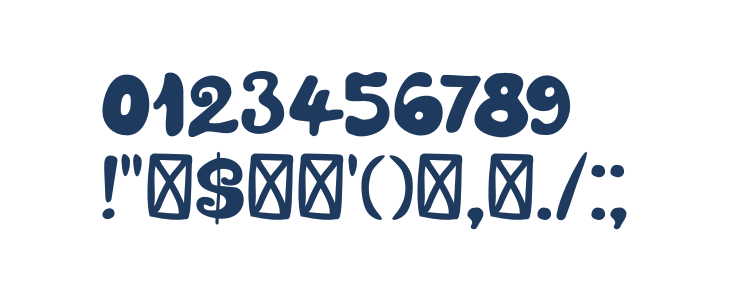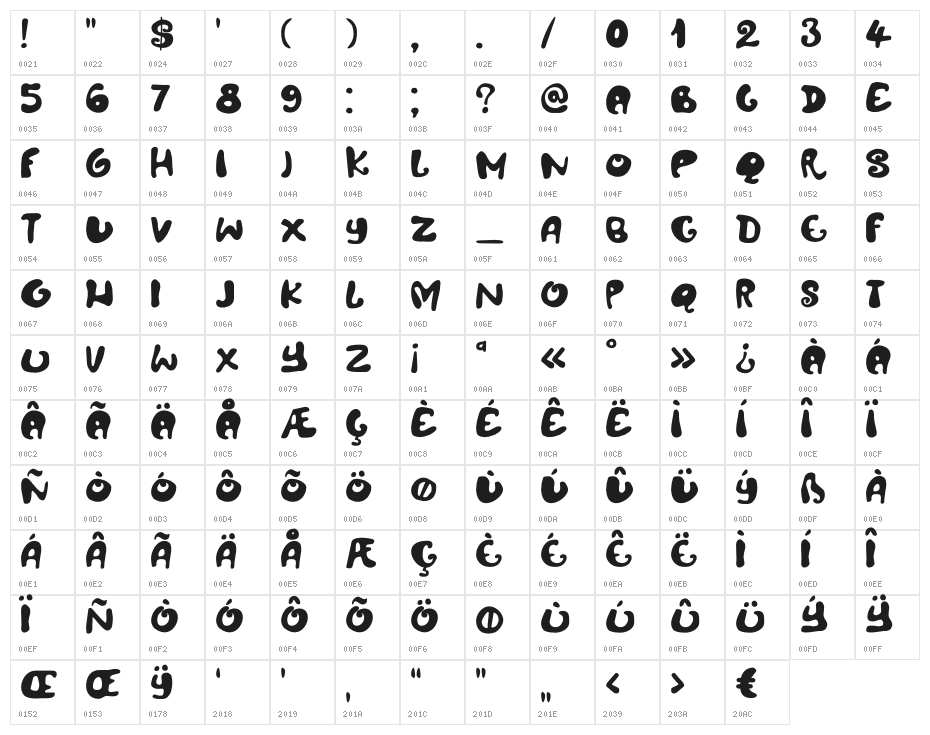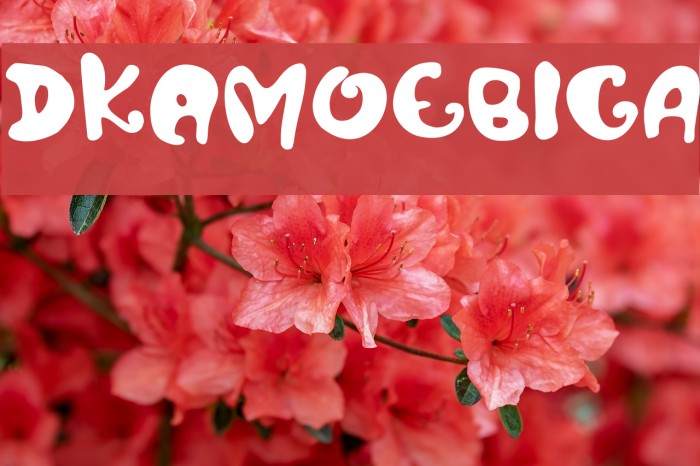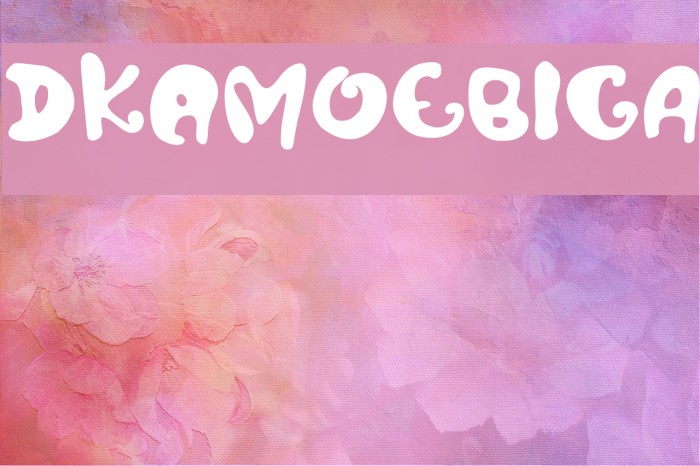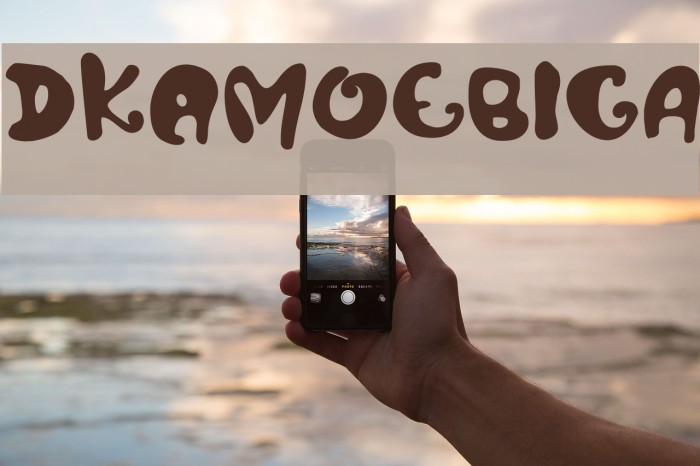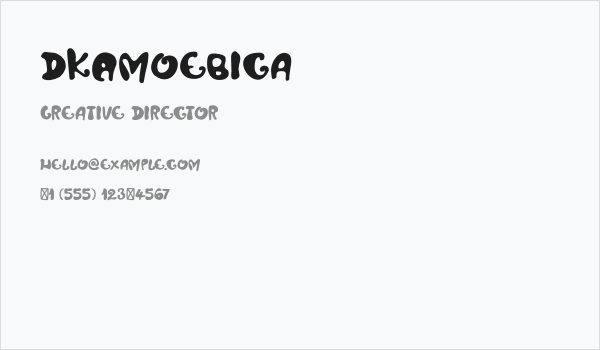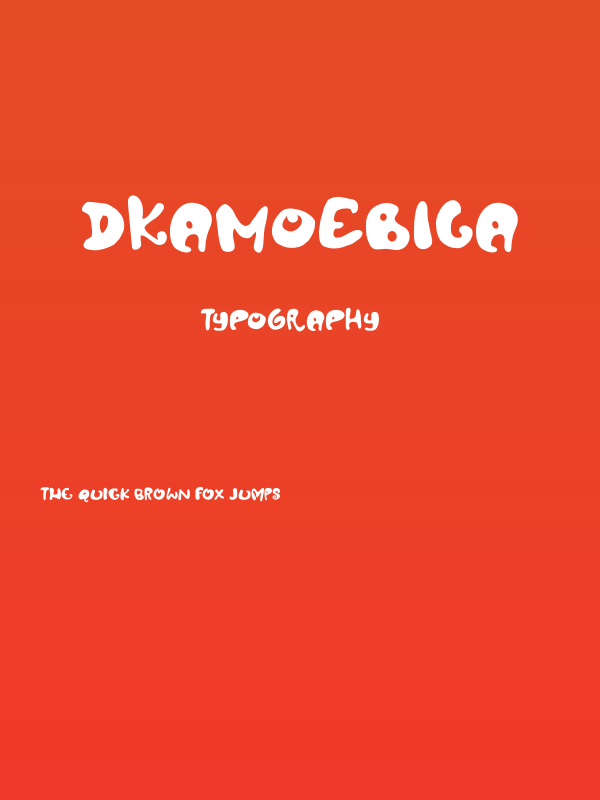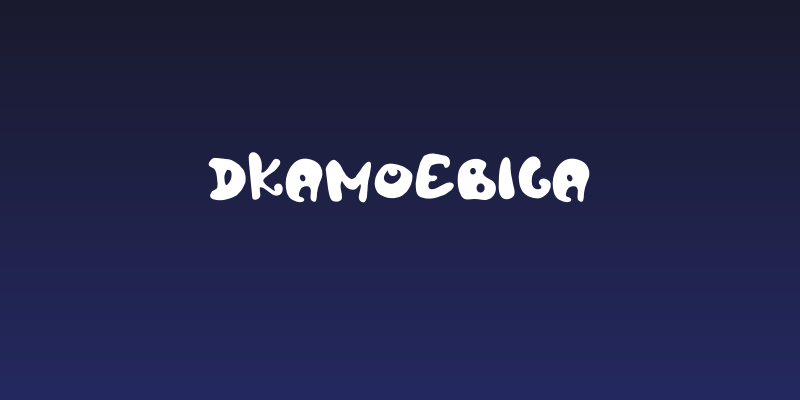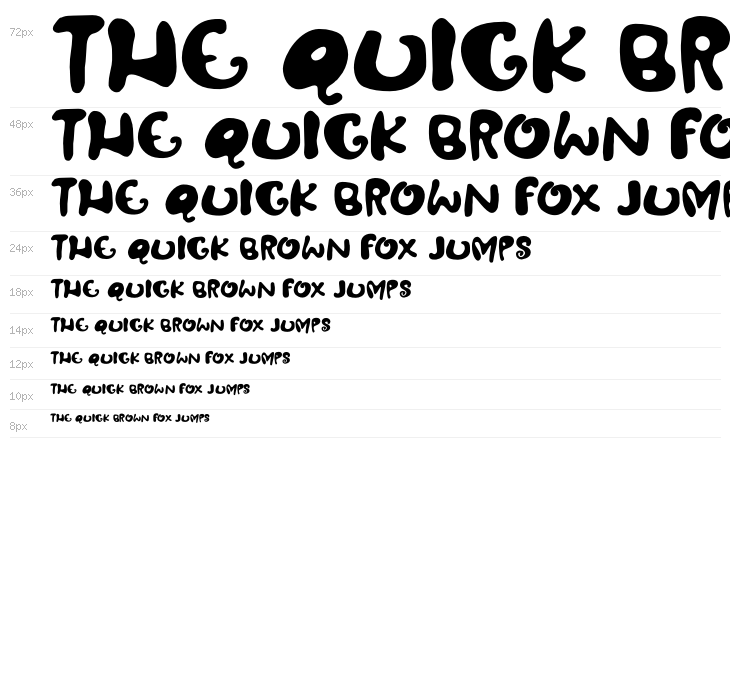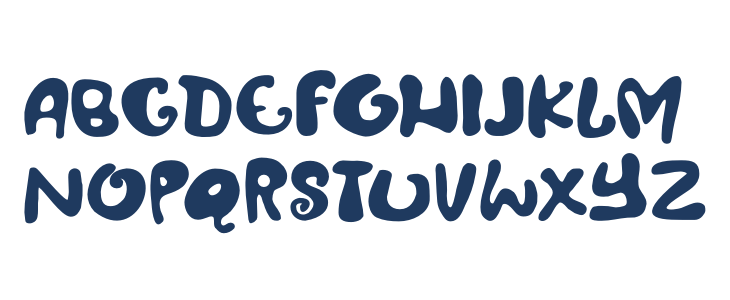
DKAmoebica Font
DKAmoebica Description
This font features a playful and bold design with an organic, amoeba-like appearance. The characters are rounded and irregular, giving a whimsical and dynamic feel. The uppercase and lowercase letters maintain a consistent style, with exaggerated curves and a sense of movement. The numbers and special characters follow the same playful theme, making the font suitable for creative and informal applications. Its unique style makes it stand out, perfect for projects that require a fun and eye-catching typeface.
Overall StylePlayful, Whimsical
Proposed ProjectsIdeal for children's books, playful branding, party invitations, and creative posters.